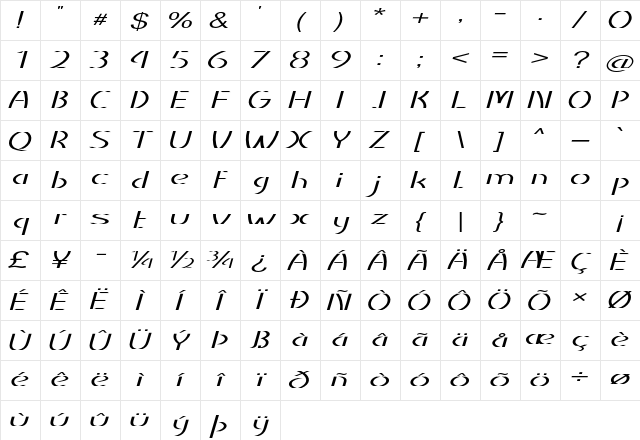
Braxon Extra-expanded Italic
Style: Extra-expanded Italic
Braxon Family
Braxon Extra-expanded Italic
Complete Braxon Extra-expanded Italic glyph index. Displaying only characters natively supported by Braxon Extra-expanded Italic font.
Design Context for Braxon
Braxon is a composed and adaptable typeface that performs quietly and consistently across a wide range of design contexts. The slanted form adds forward momentum and visual energy.